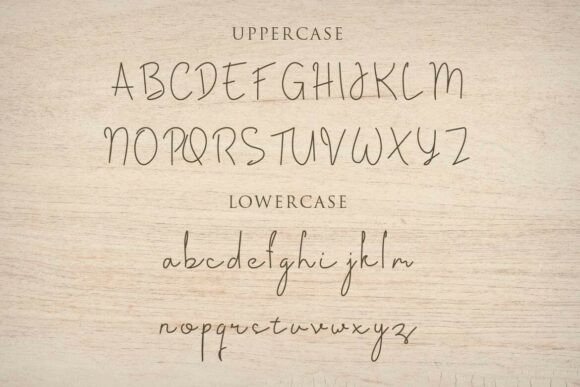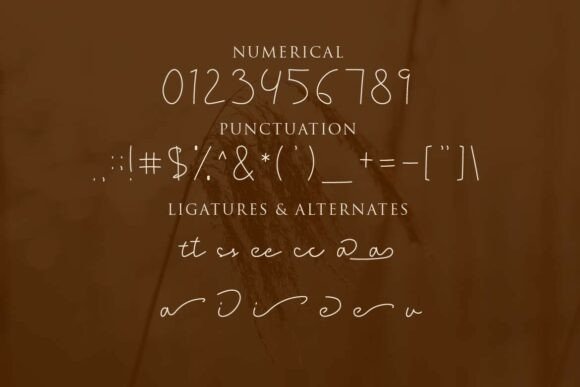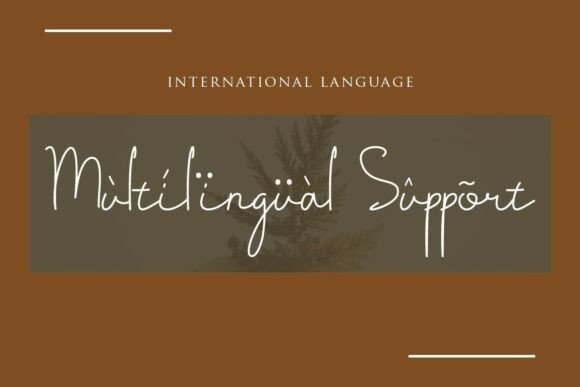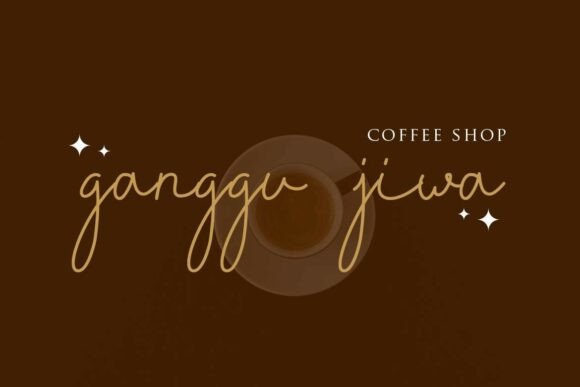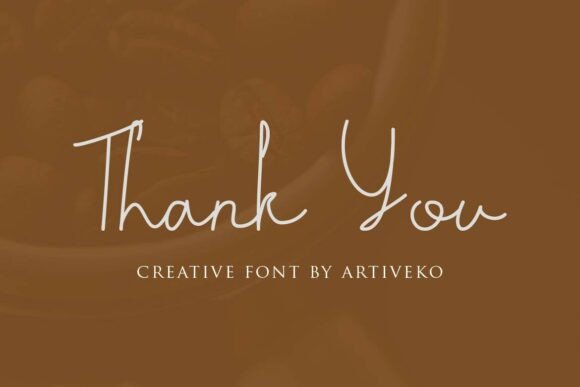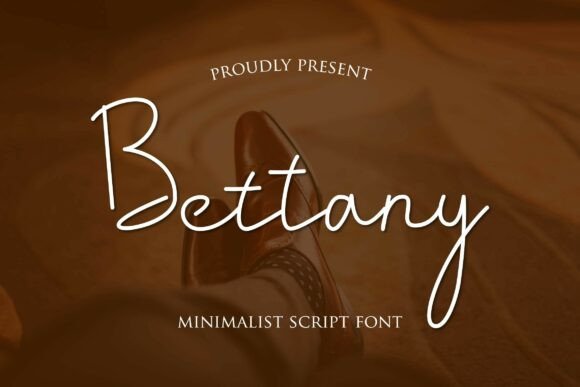
The Elegance of Bettany Font: A Designer’s Delight
I’ll never forget the time I was working on a wedding invitation project, and my client asked for a font that exuded elegance and sophistication. I scoured the internet, tried out countless fonts, but nothing seemed quite right. That was until I stumbled upon Bettany Font. With its flowing strokes, gentle curves, and refined rhythm, it brought the perfect blend of romance and polish to the design. In this article, I’ll share my love for Bettany Font, its features, and how to make the most of it in your designs.
An Honest Review of Bettany Font
- ✨ Beautifully crafted letters with a sense of movement and fluidity
- ✅ Perfect for wedding invitations, but also great for branding, quotes, and product packaging
- 💫 Elegant and sophisticated without being too formal or stuffy
- 🎨 Versatile and adaptable to various design styles and projects
While Bettany Font is a stunning addition to any design, there are a few things to keep in mind:
- 🤔 Some letters may require manual kerning for optimal spacing and readability
- ⚠️ Not ideal for body text due to its script nature and potential readability issues
- Experiment with OpenType features like ligatures and stylistic alternates to add visual interest
- Choose Bettany Font from the font menu and explore glyphs and stylistic alternates to add depth and personality
The Story Behind Bettany Font
Bettany Font was designed with the intention of capturing the essence of handwritten elegance. The designer aimed to create a font that would evoke a sense of romance and sophistication, perfect for special occasions and high-end branding. While the real story behind the font’s creation may be unknown, its beauty and versatility have made it a favorite among designers and crafters.
Q: What type of projects is Bettany Font best suited for?
A: Bettany Font is perfect for wedding invitations, branding, quotes, product packaging, and any project that calls for a personal yet polished touch.
Q: Can I use Bettany Font for body text?
A: While Bettany Font is beautiful, it’s not ideal for body text due to its script nature and potential readability issues.